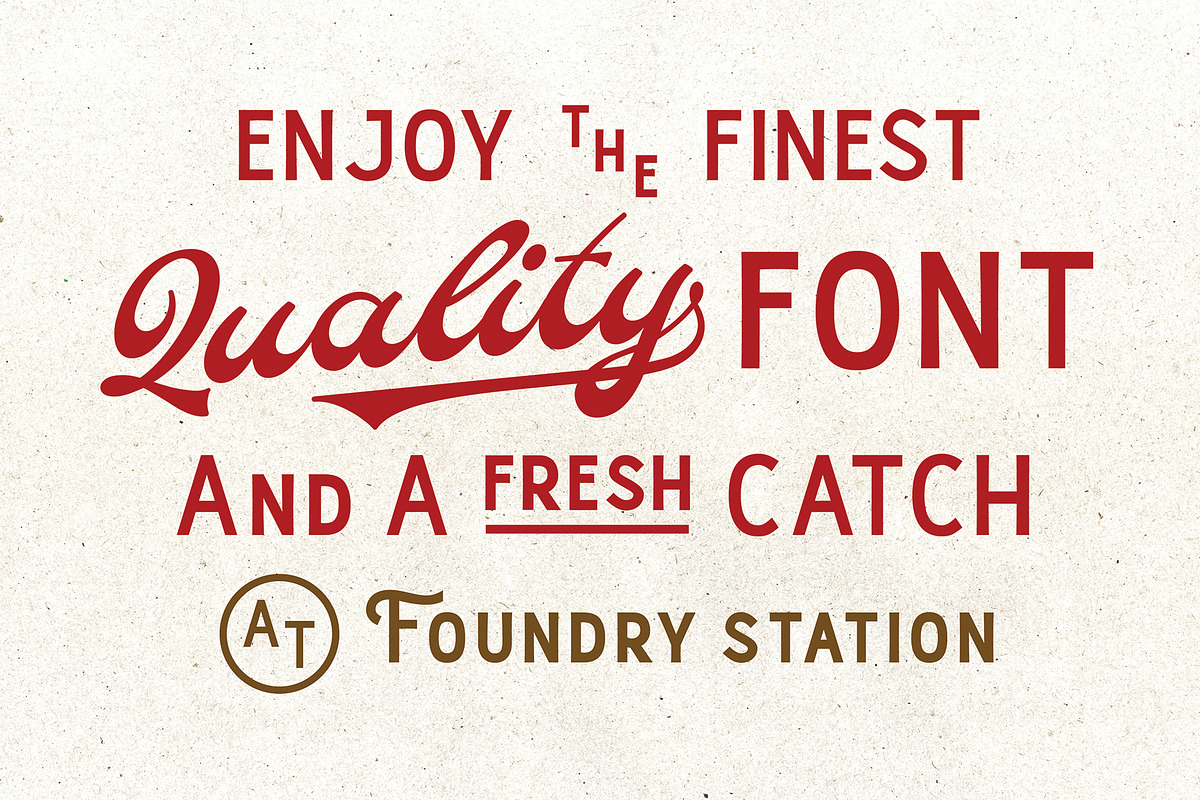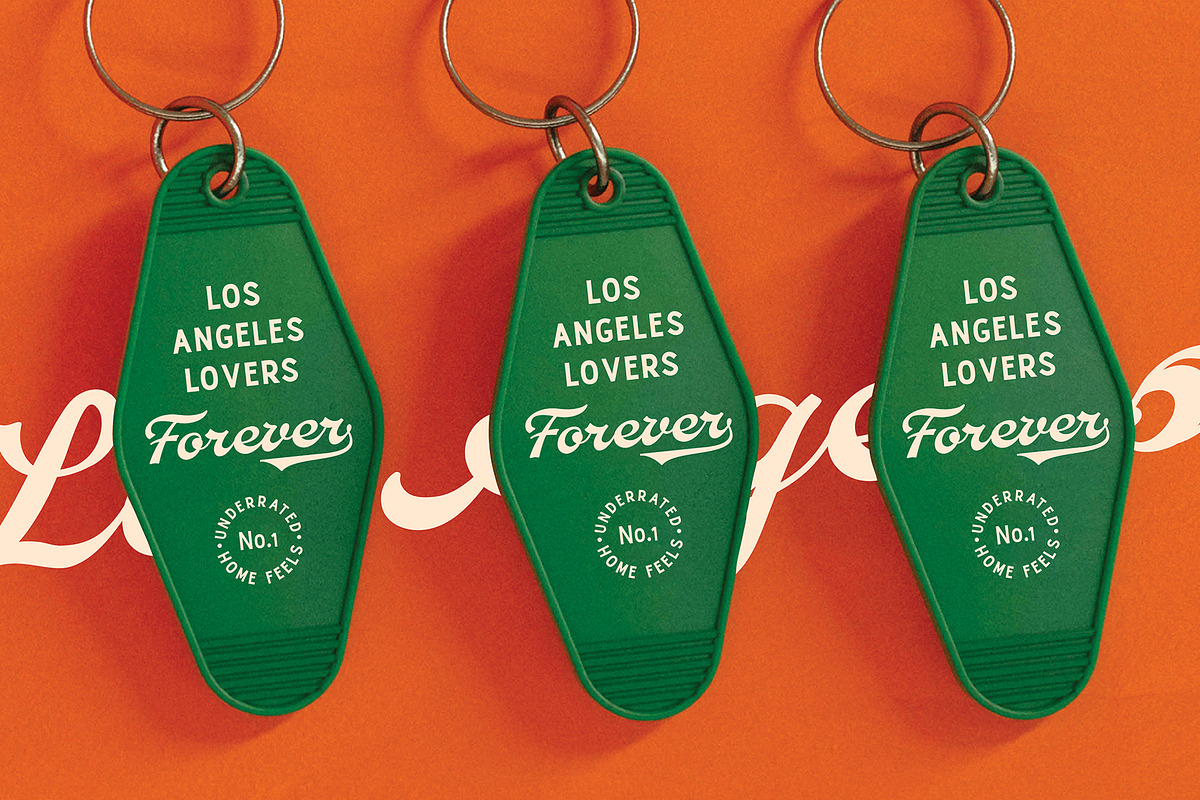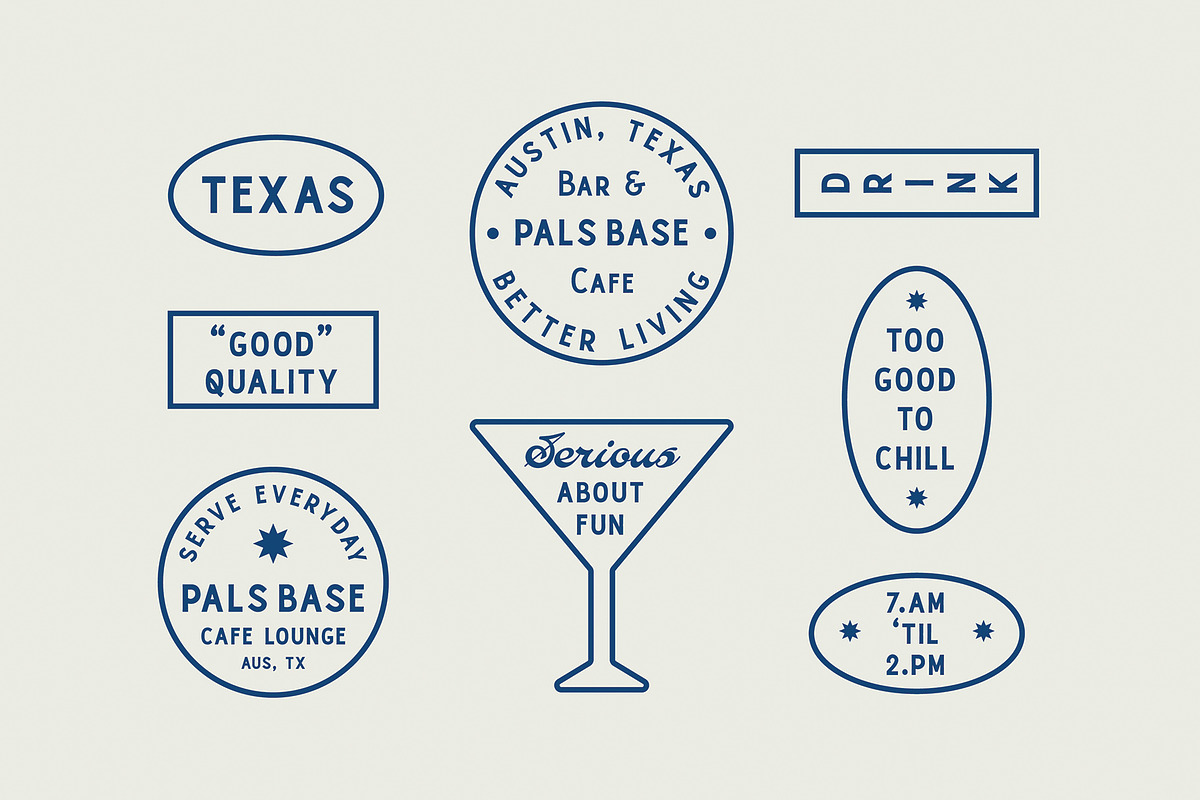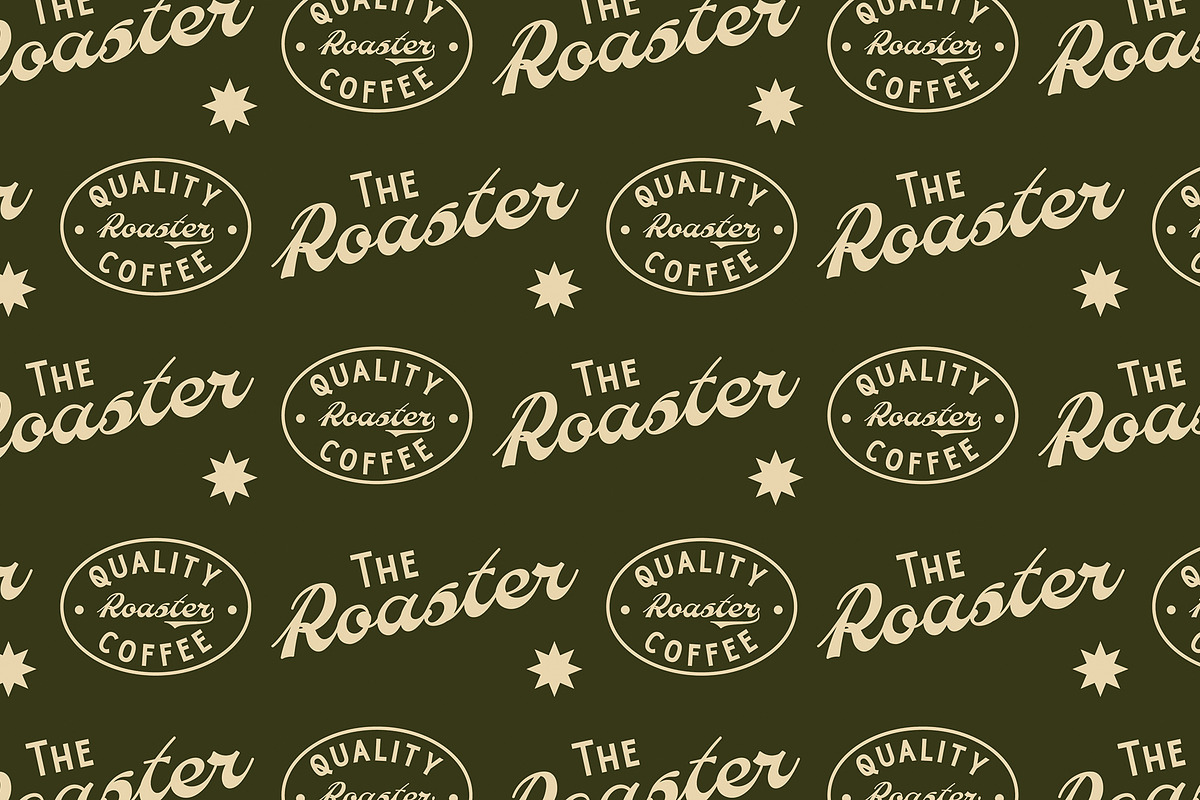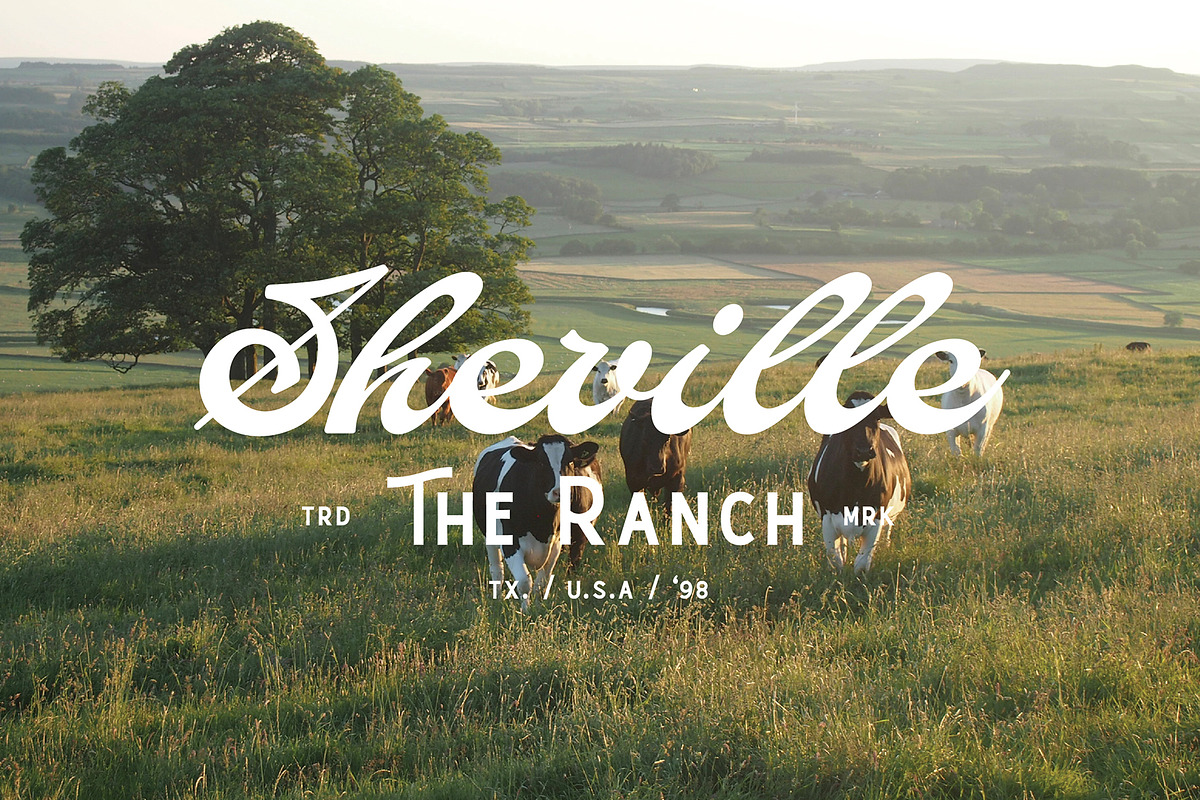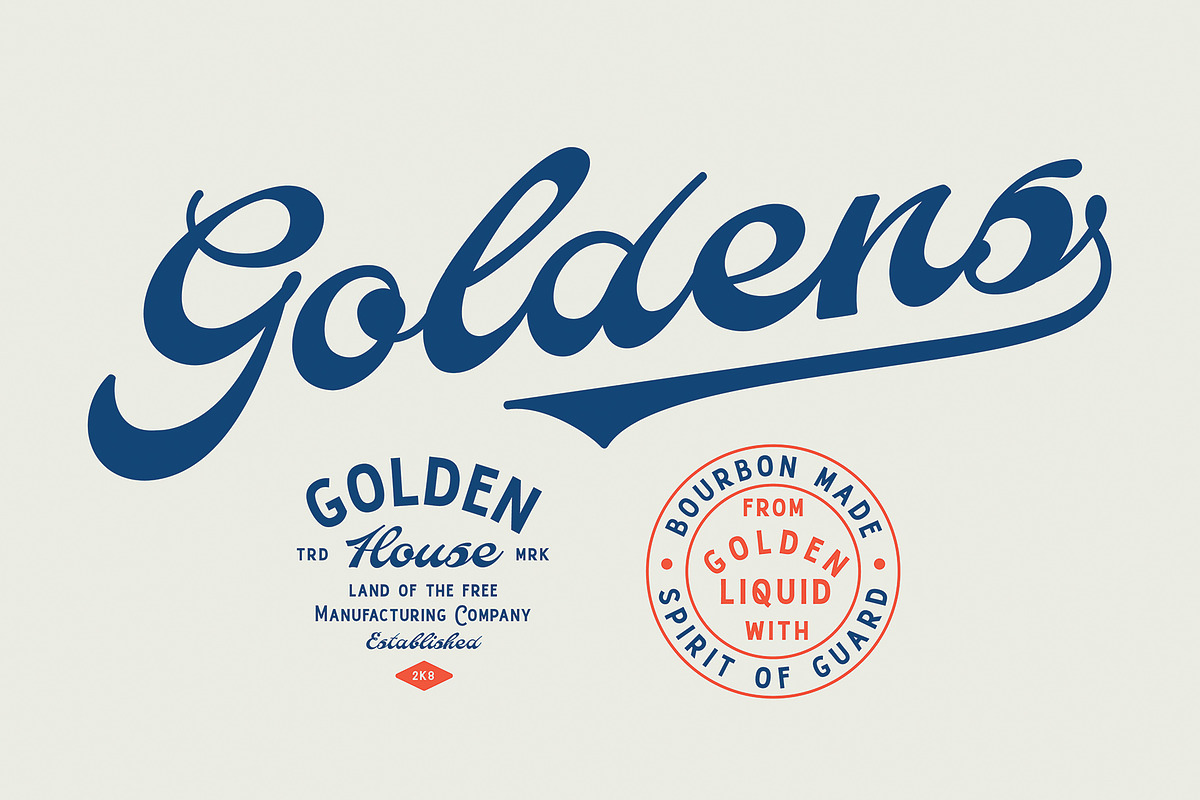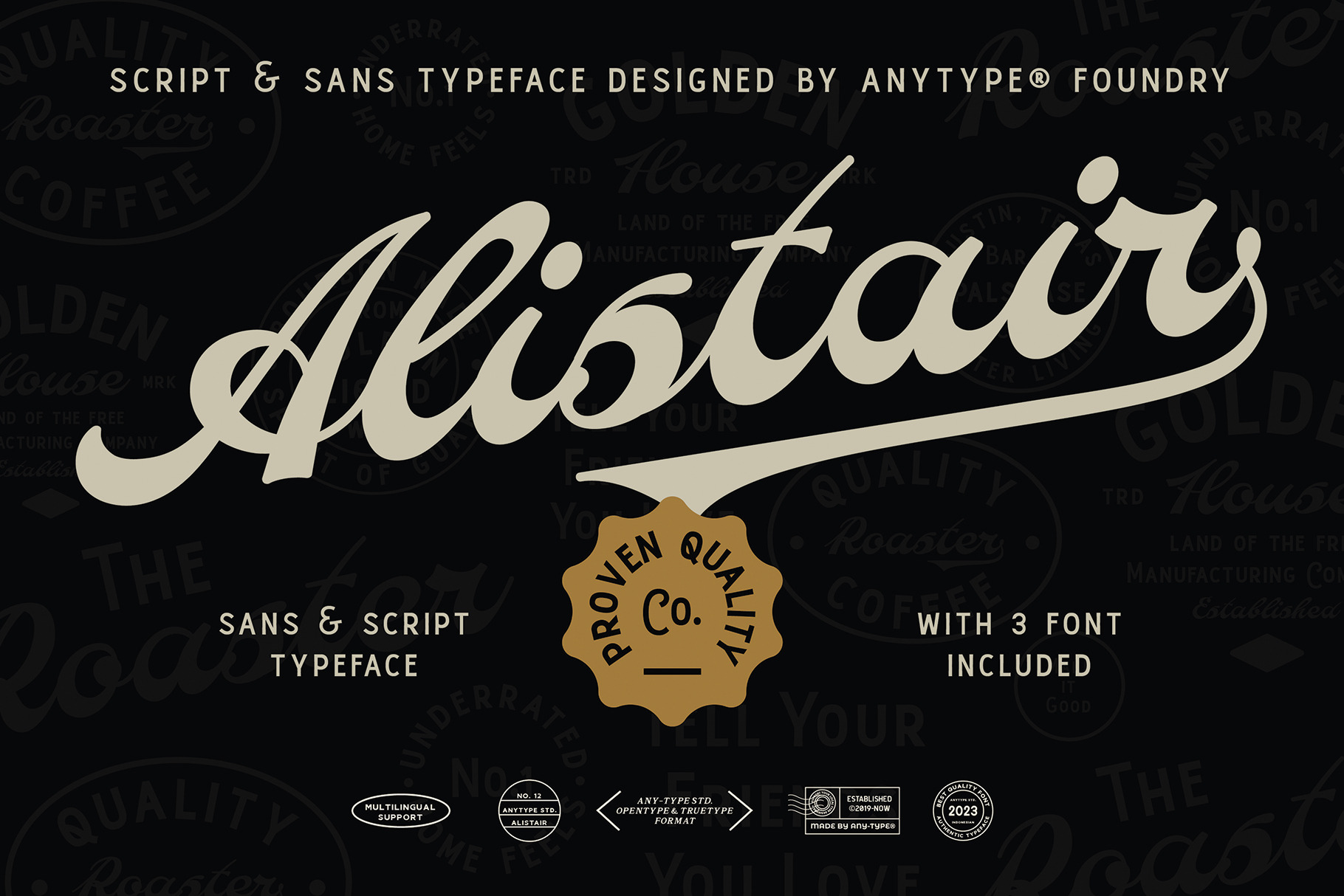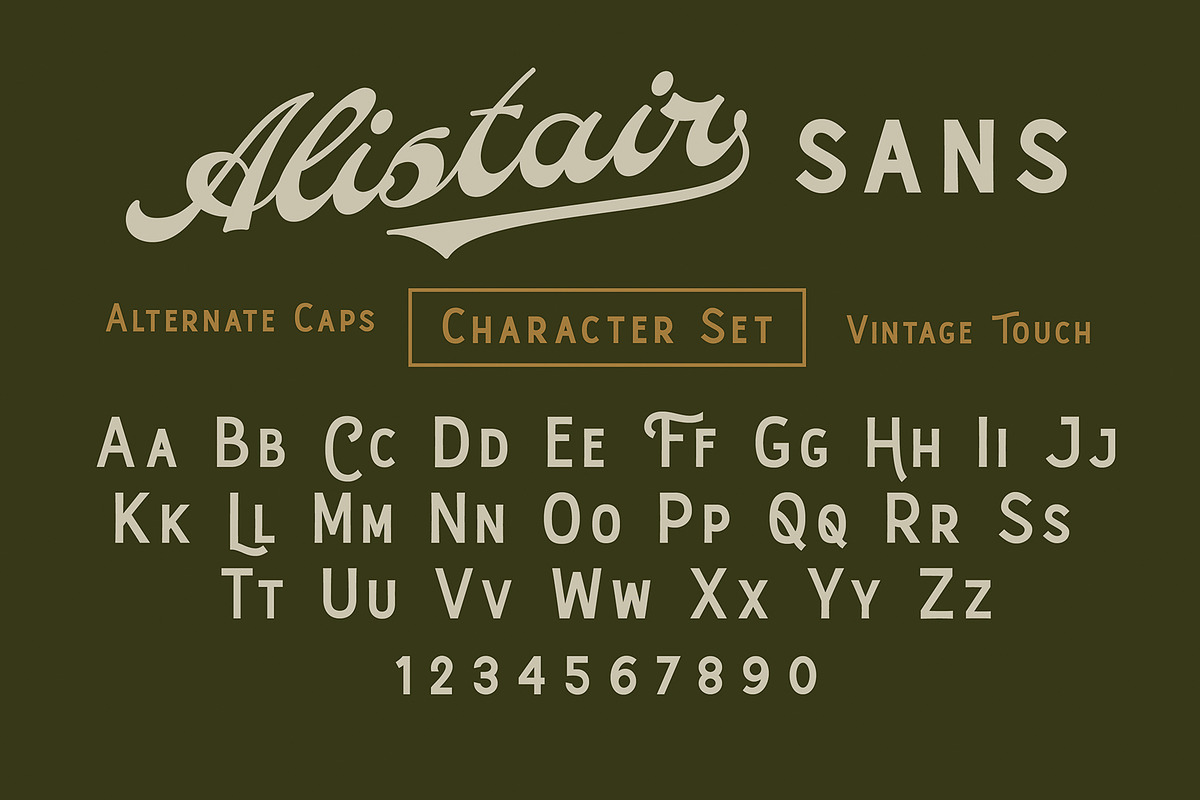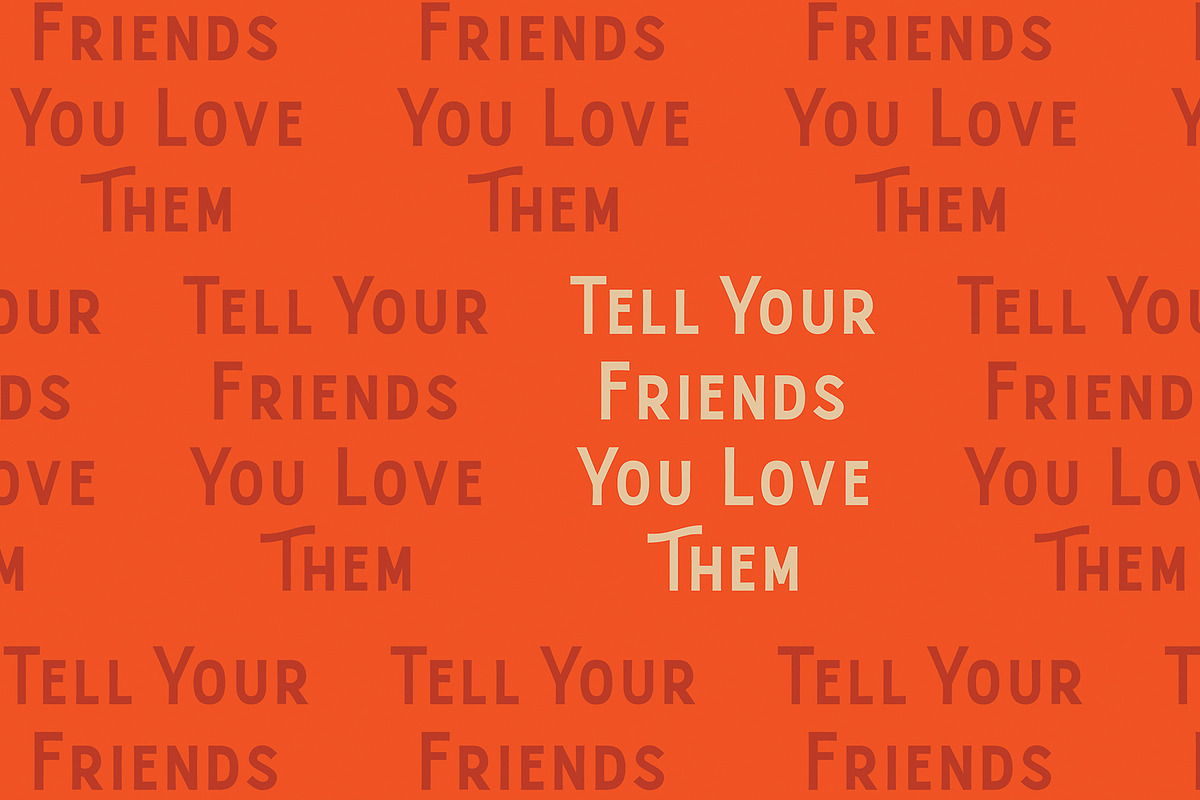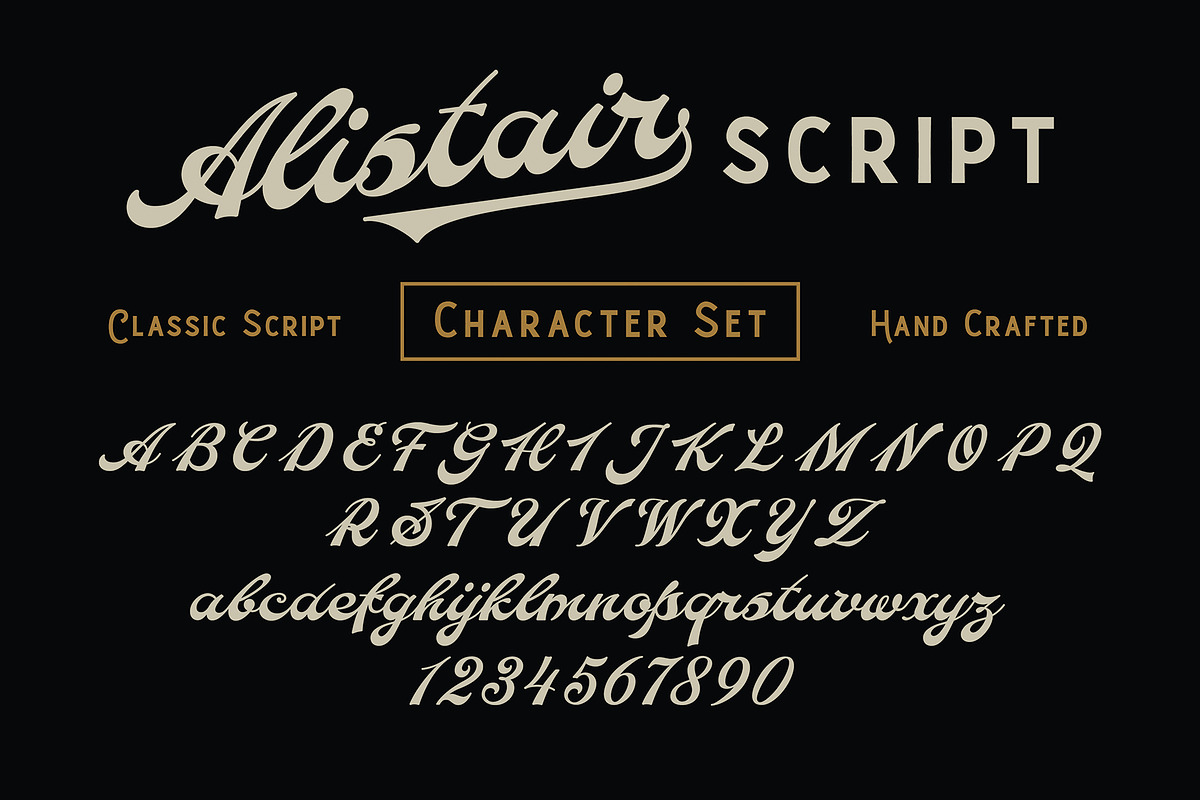
AT Alistair Font Duo
ALISTAIR SCRIPT & SANS FONT
Alistair Font Duo is handmade vintage script and sans (Regular & Semi Bold) fonts. Inspired by classic western culture, custom culture motorcycle and combining with vintage touch. This font would be perfect to combine in your design, especially on vintage design.
This fonts are great for logotype, badges, clothing, poster, and much more. This fonts comes with Opentype, Truetype and Webfont format also comes with multilingual support.